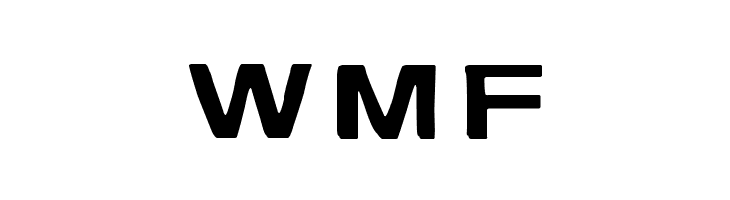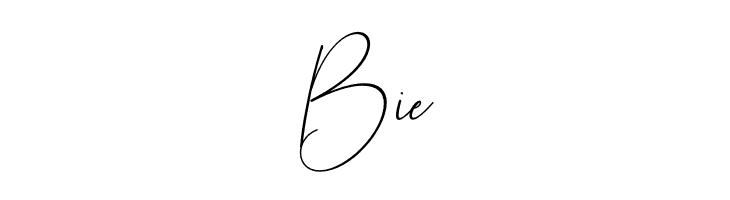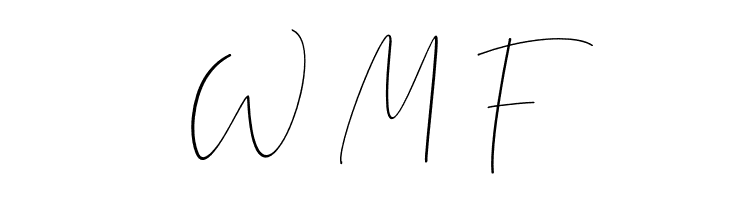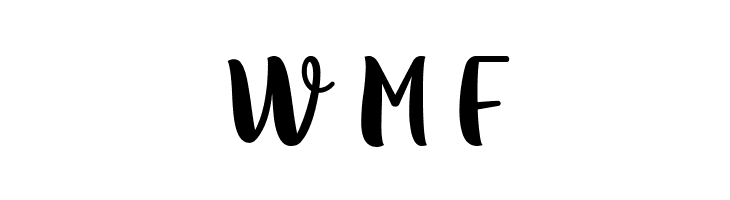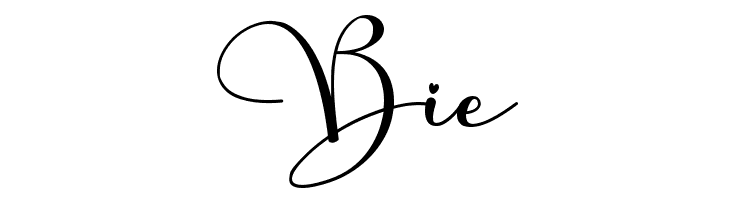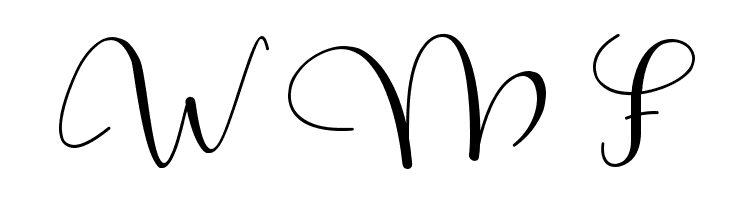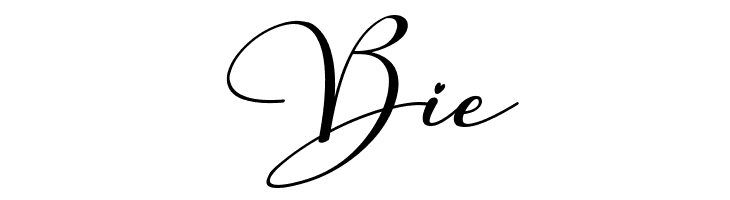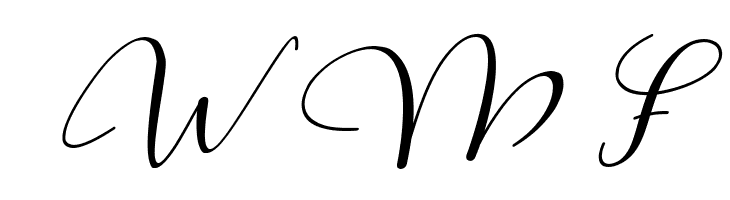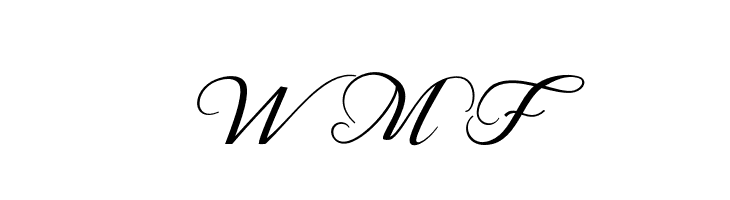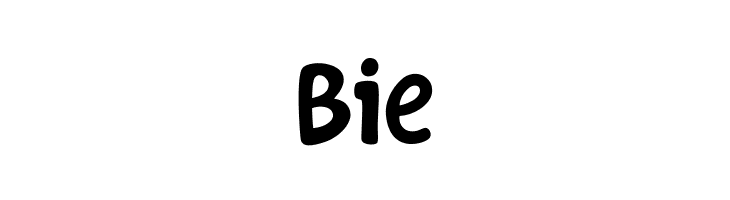
A playful, bold script font with a handwritten, whimsical style.
A bold, playful font with rounded edges and a modern, casual style.
An elegant script font with flowing, cursive letterforms and intricate flourishes.
A lively and expressive handwritten font with fluid, dynamic letterforms.
A delicate, elegant script font with a handwritten style.
A playful, bold font with rounded, hand-drawn strokes.
A modern, geometric sans-serif font with uniform character width and low contrast.
A playful, handwritten font with smooth, rounded edges and a casual style.
An elegant, flowing script font with decorative uppercase and smooth lowercase letters.
A graceful and flowing script font with elegant curves and loops.